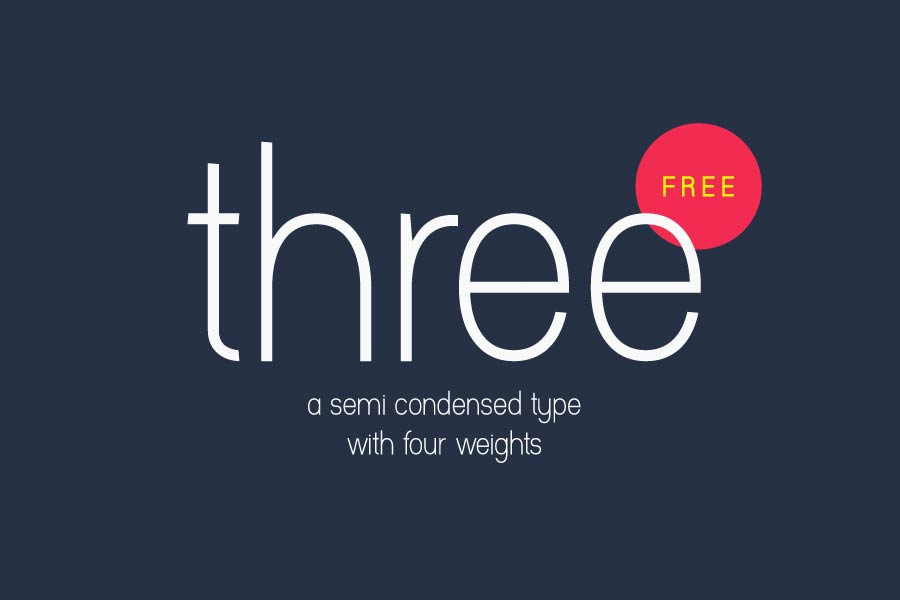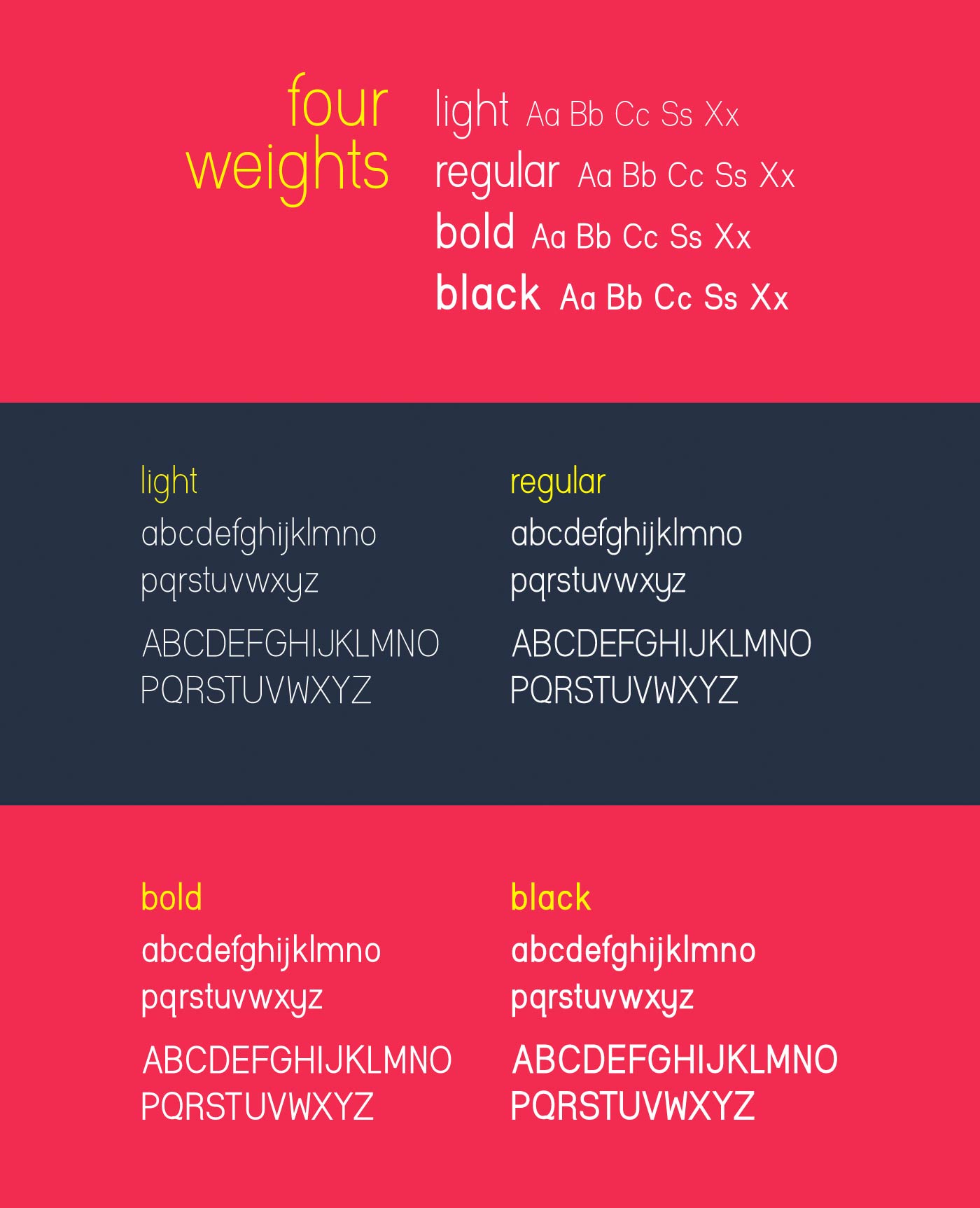
Three is a semi condensed sans serif font that you can download for free. Three comes with 4 nifty font weights, and the unique characteristics of the font design is that the terminals were tailored to look “funky” by using slight different angles. This free font is only available for non-commercial use.